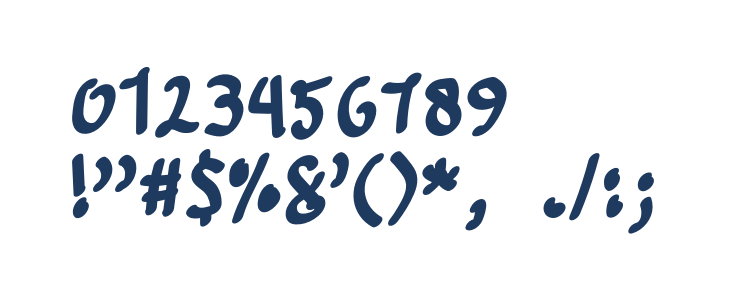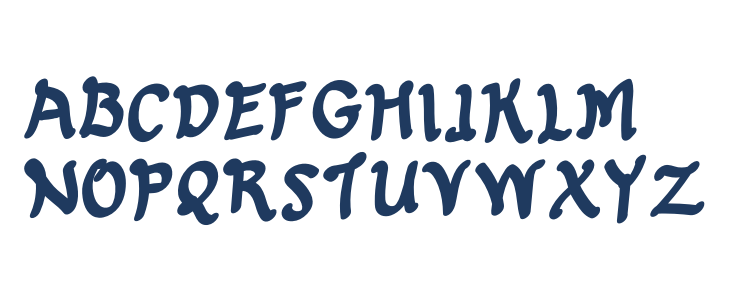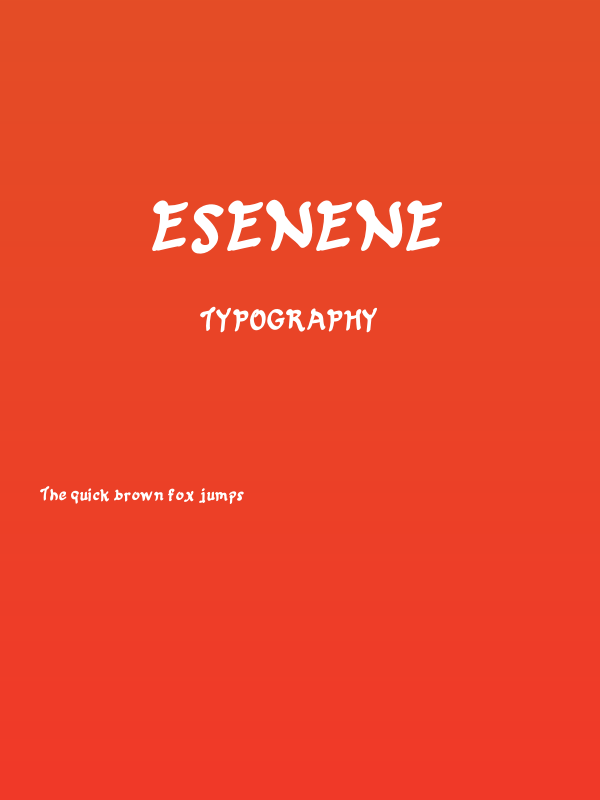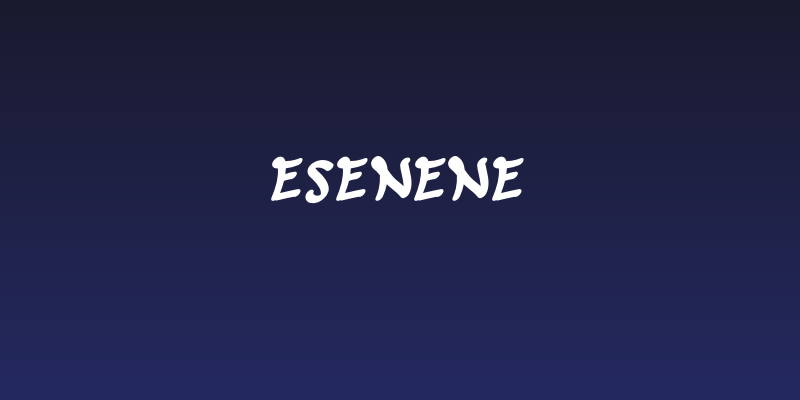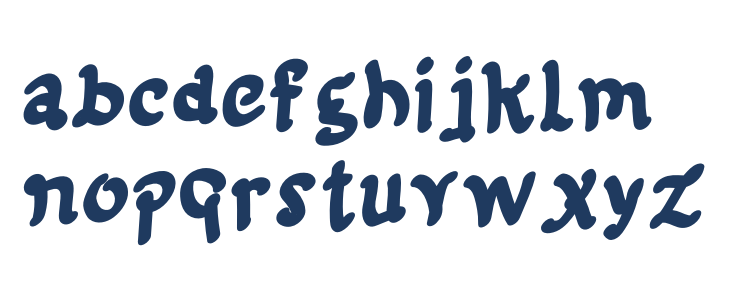
Esenene Font
Esenene Description
A playful, bold handwritten typeface with irregular, organic strokes and a casual, friendly appearance. The characters have varied thickness and a slightly uneven baseline, giving a lively and informal feel.
| Overall Style | Playful, Casual, Decorative |
| Use Case | Headlines, Posters, Logos, Invitations |
| Proposed Projects | ChildrenΓ’β¬β’s books, greeting cards, posters, informal branding, event invitations. |